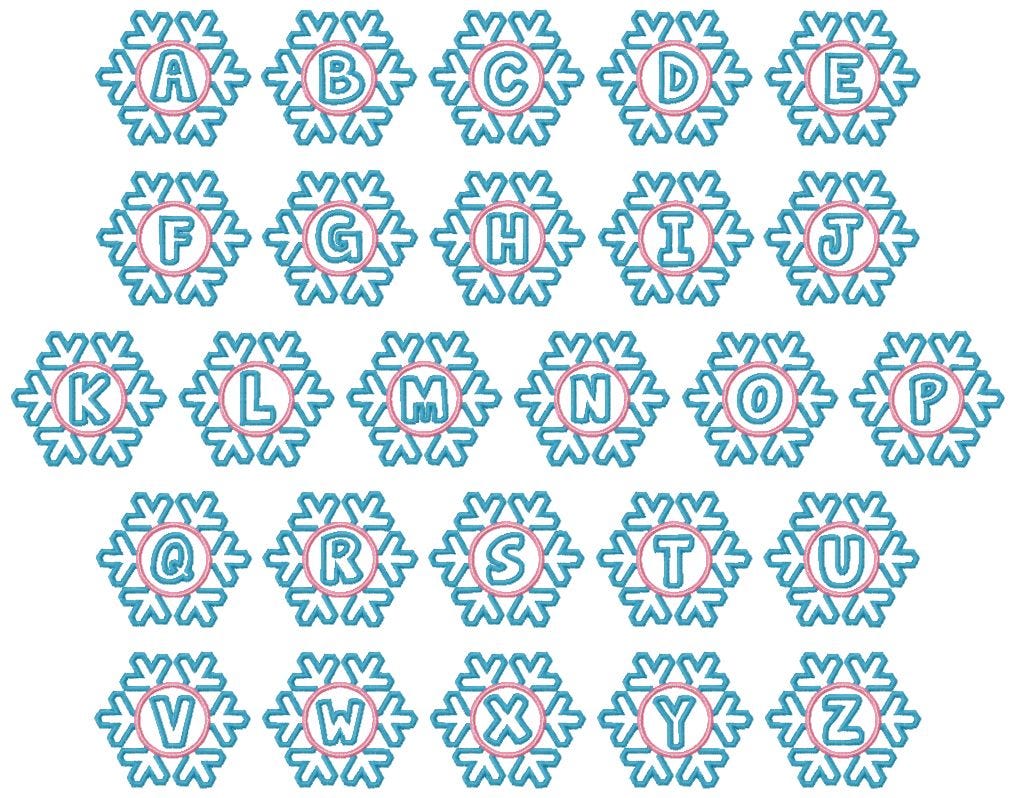
Snowflake Satin Stitch Applique Monogram Embroidery Font
Customize winter projects with our three-fabric Snowflake applique alphabet! Capital Letters A-Z included.